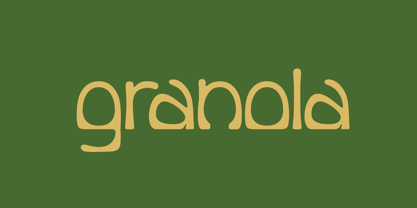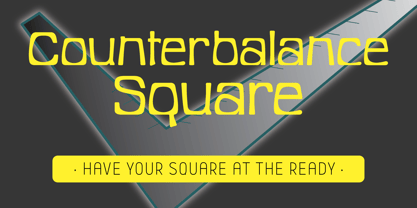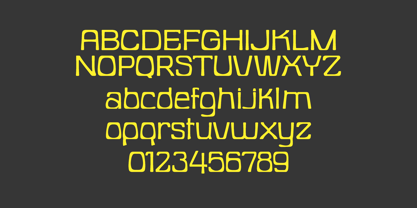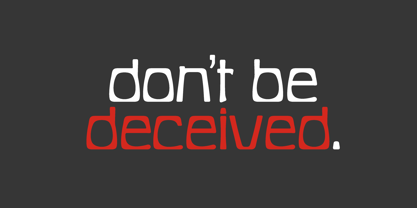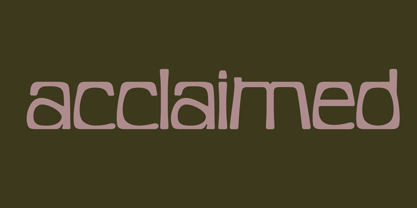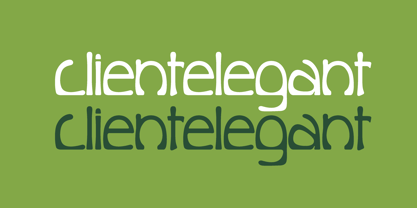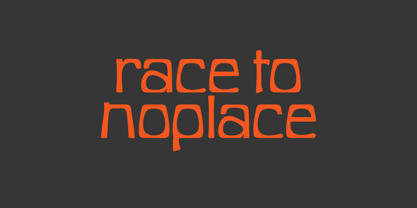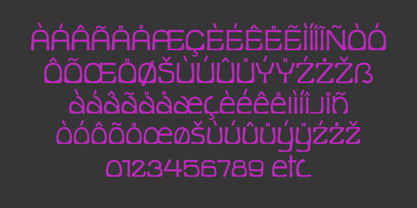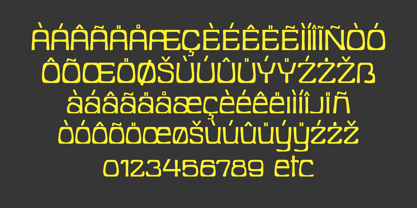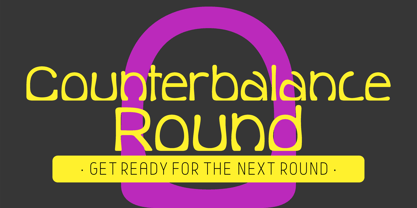
Counterbalance
by Settled Font Foundry
The Counterbalance Font Family was designed by Gary Jaffe and published by Settled Font Foundry. Counterbalance contains 2 styles and family package options. More about this family
"Counterbalance" is a Latin-1 font designed for a great variety of applications: headlines, posters, signage, billboards, mastheads, television graphics, street signage, etc. As in all of our fonts, every node and handle is important; every curve precisely drawn. Our hope is to add beauty to our world for everyone seeing it, and joy and a good sense of accomplishment for everyone using it.